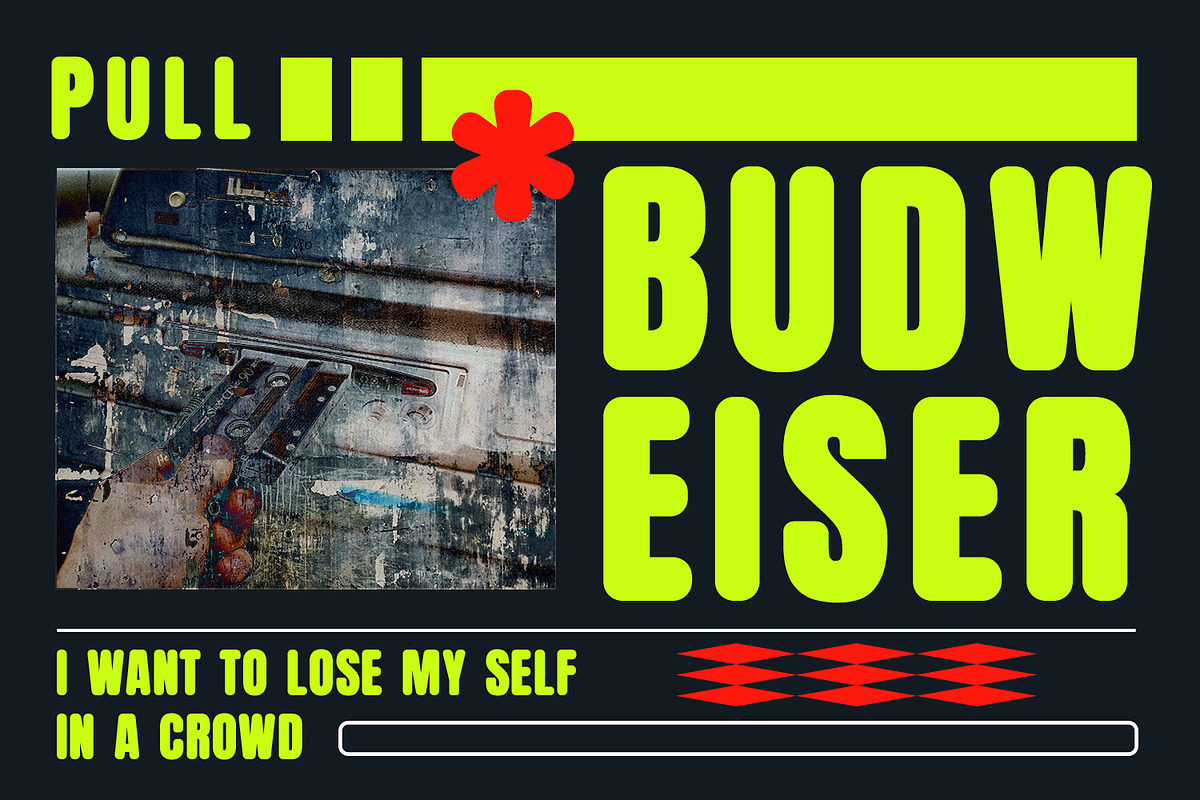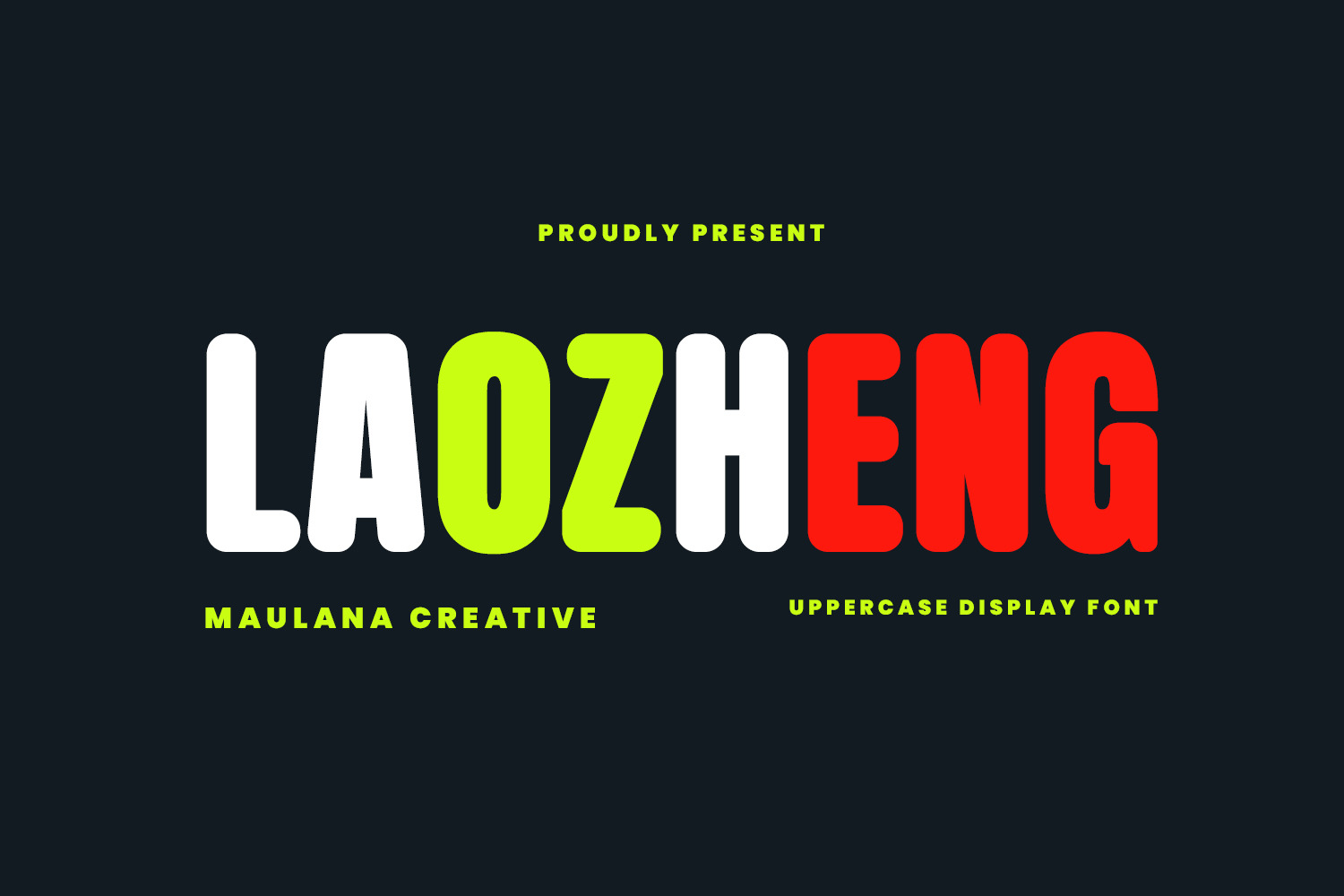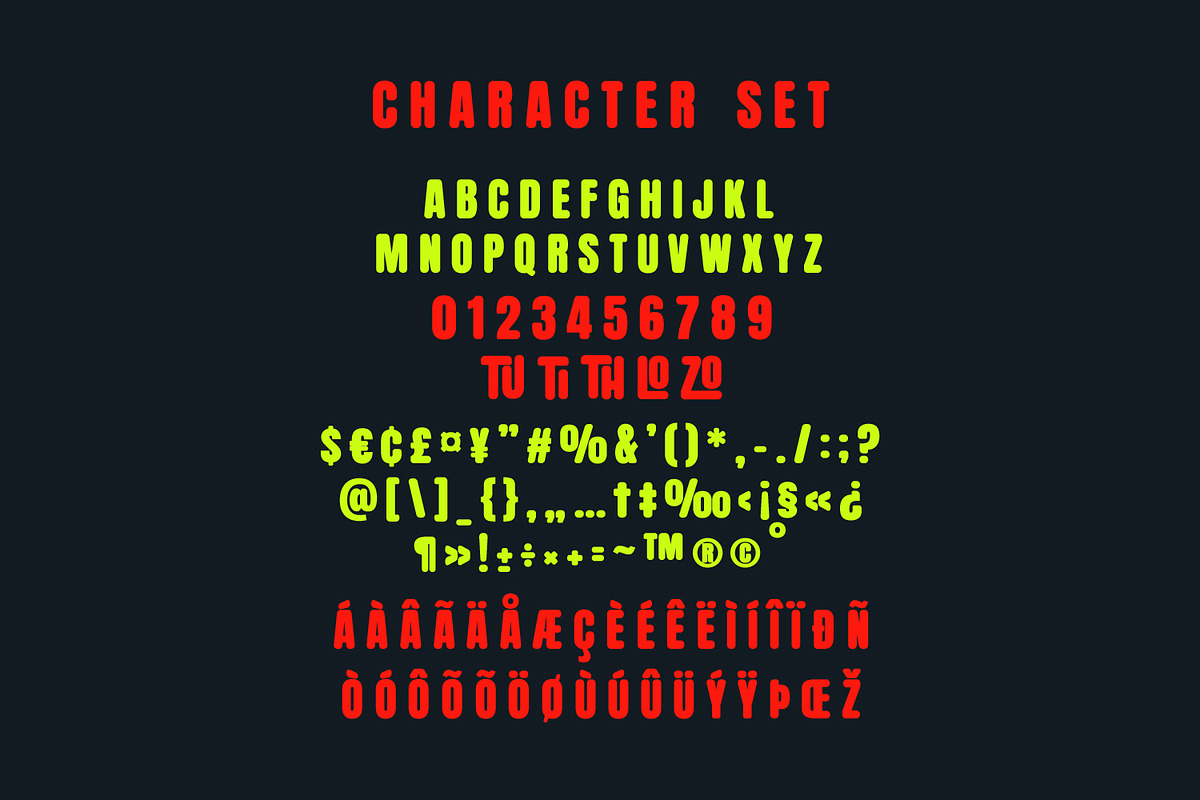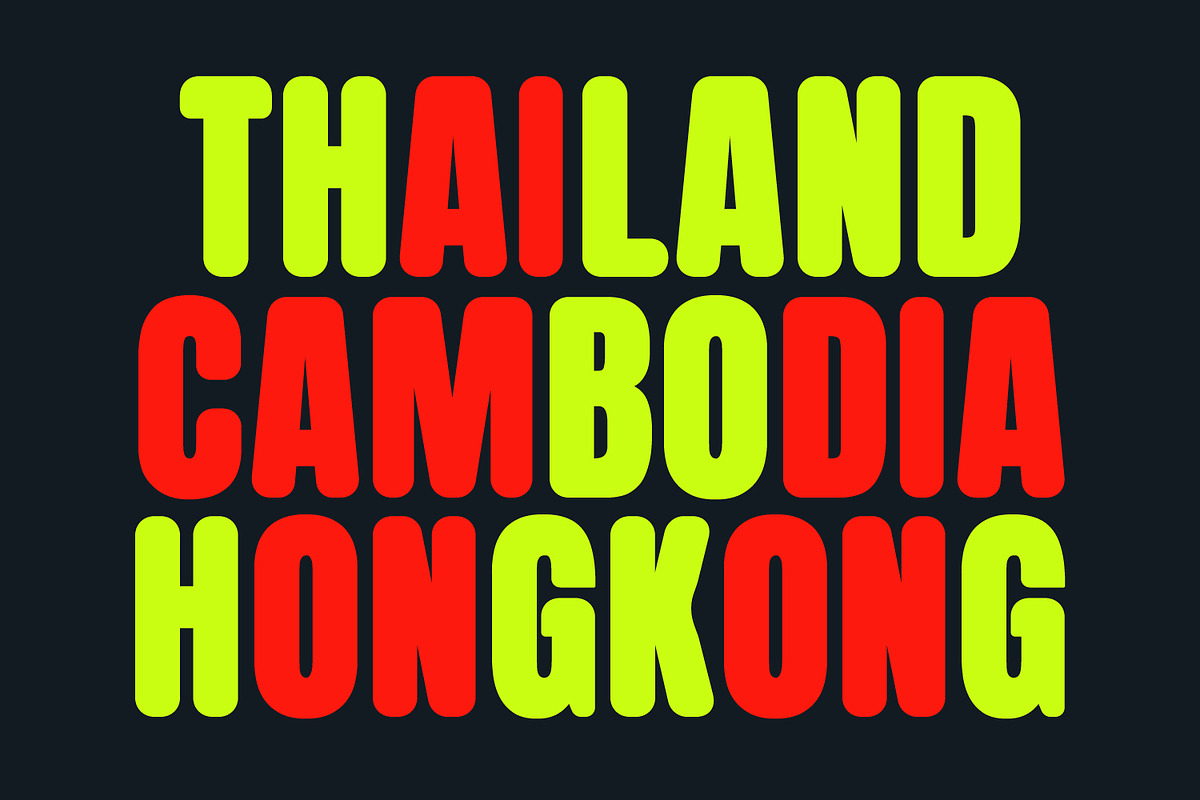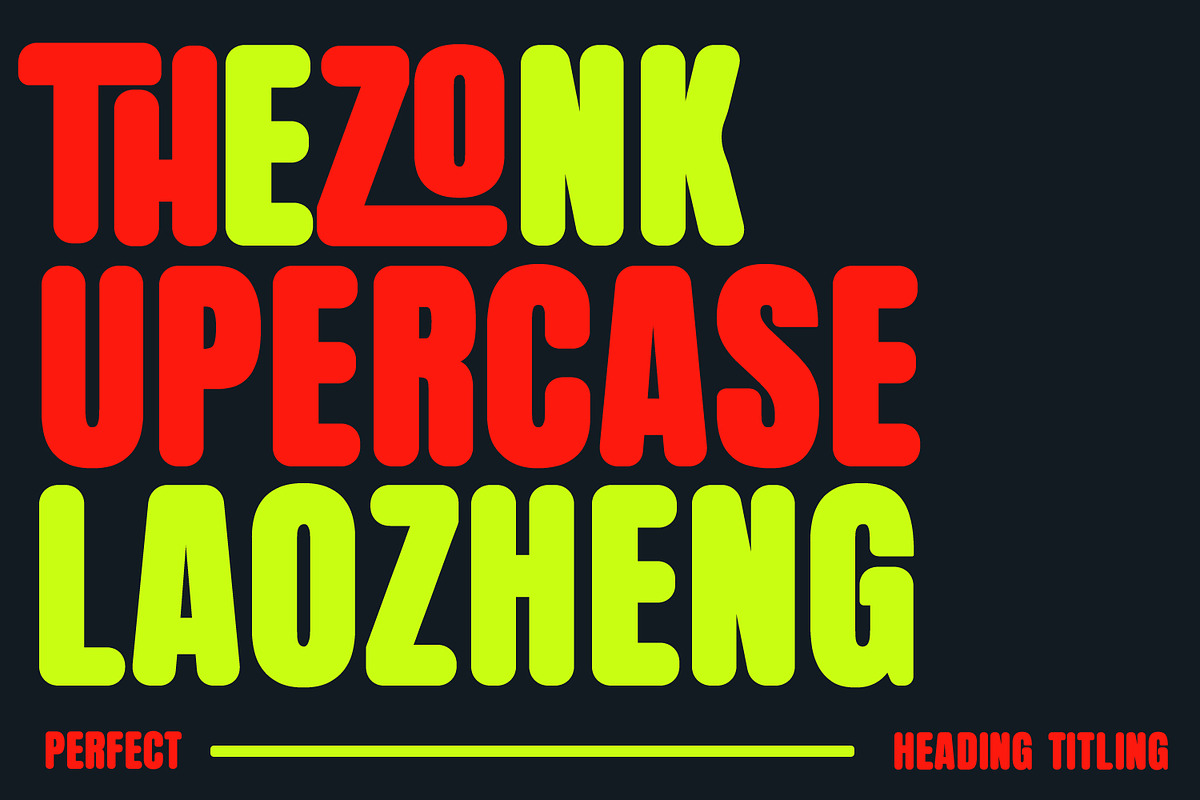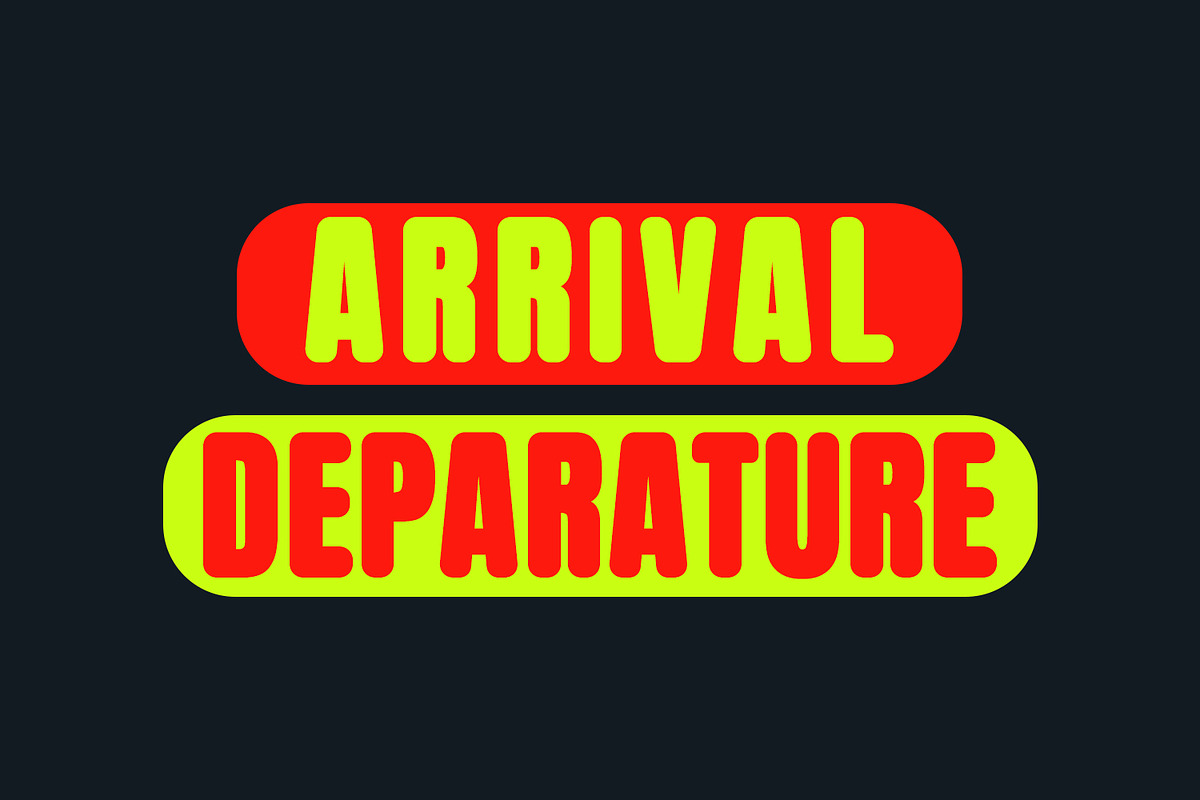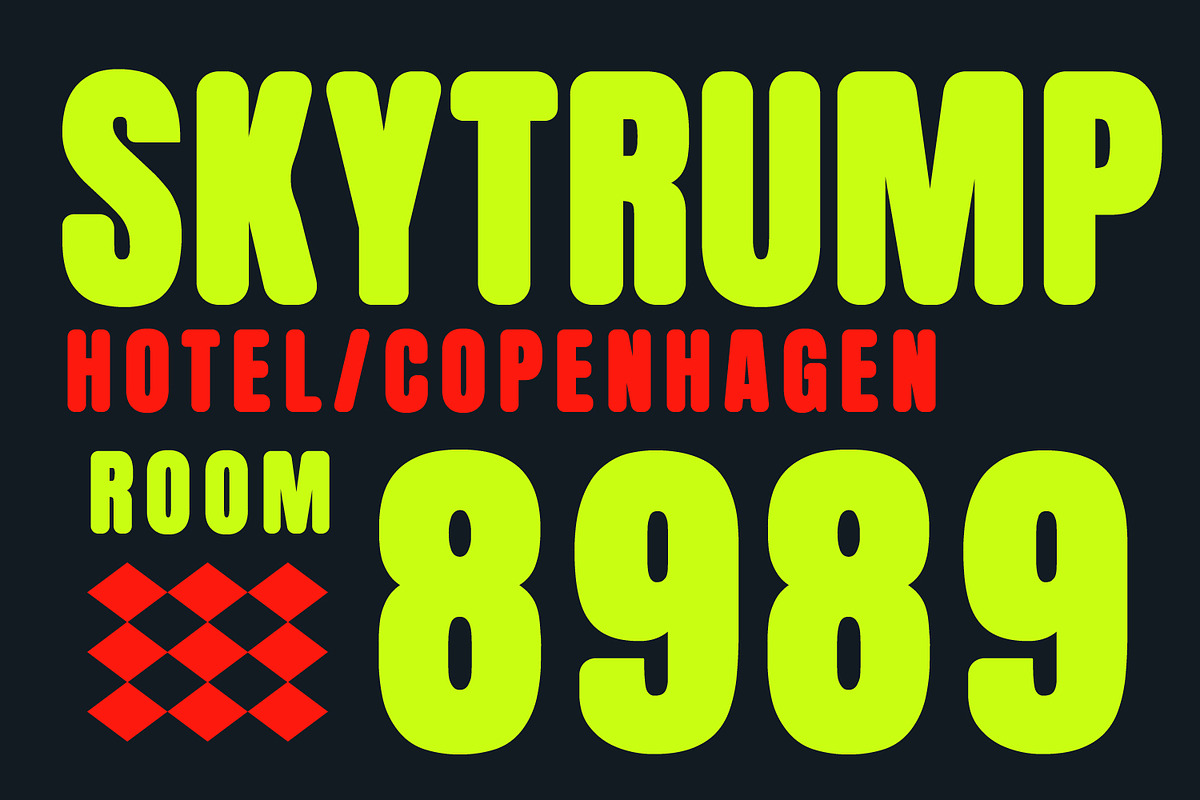
Laozheng Uppercase Display Font
Laozheng is a sans serif uppercase font. Awesome character with a ligatures. To give you an extra creative work. Laozheng font support multilingual language. This font is good for logo design, Social media, Movie Titles, Books Titles, a short text even a long text letter and good for your secondary text font with sans or serif. Make a stunning work with Laozheng font.